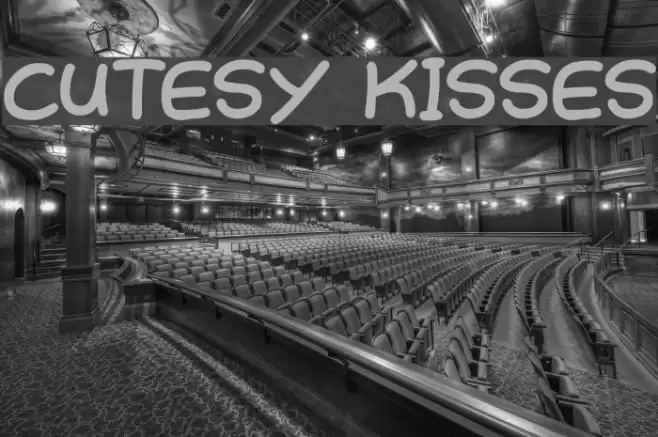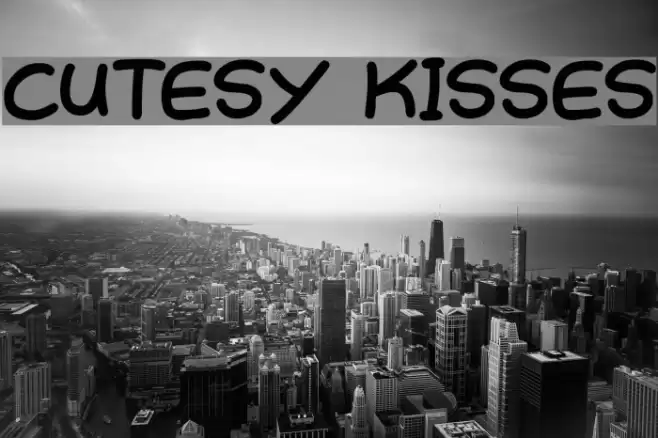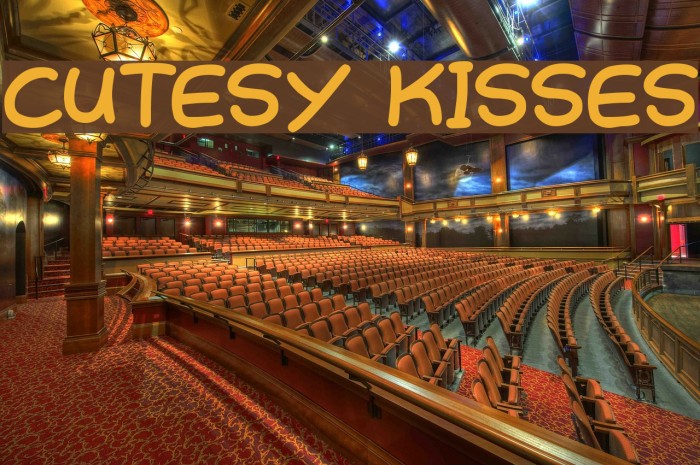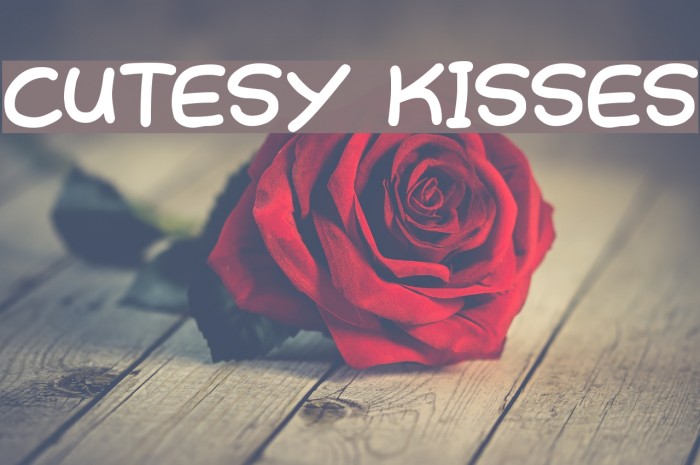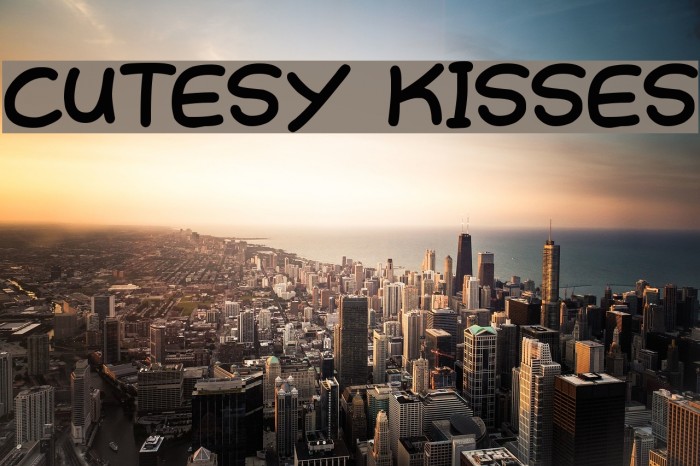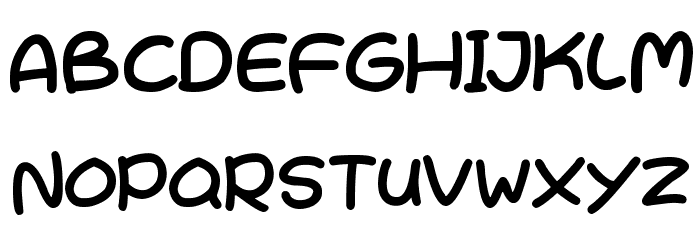
Cutesy Kisses Font
Cutesy Kisses Description
This playful and whimsical font features rounded, bubbly characters that exude a sense of fun and friendliness. The strokes are consistent in width, giving it a uniform appearance, while the slightly irregular shapes add a touch of charm and personality. The font is highly legible, making it suitable for a variety of uses where a casual and approachable feel is desired. Its unique style is characterized by smooth curves and a hand-drawn aesthetic, making it perfect for projects that aim to convey warmth and creativity.
A playful, rounded font with a whimsical, hand-drawn style from Uncategorized fonts.
- Proposed Projects: Ideal for children's books, greeting cards, playful branding, and social media graphics.
- Overall Style: Playful
- Use Case: Headlines, Logos, Informal Text